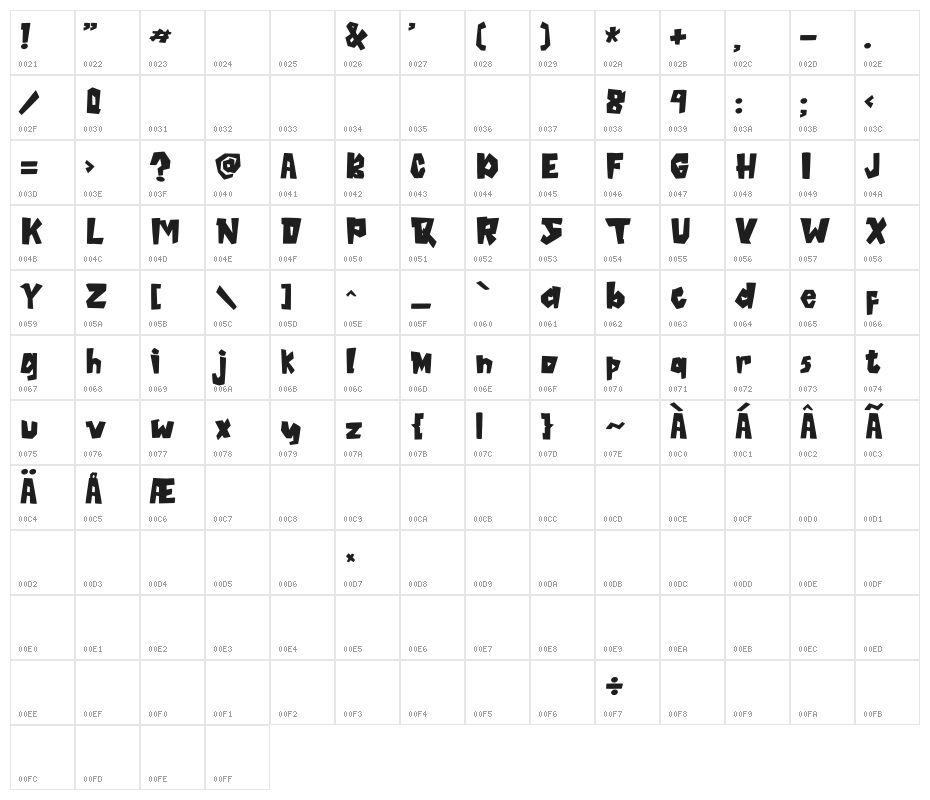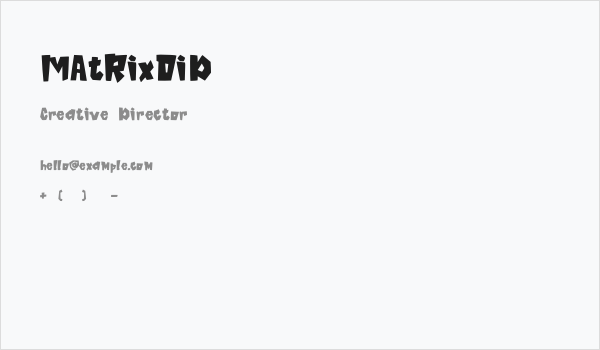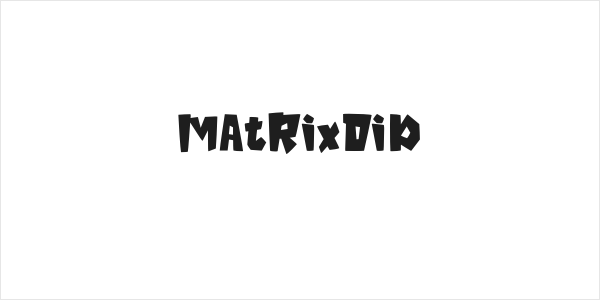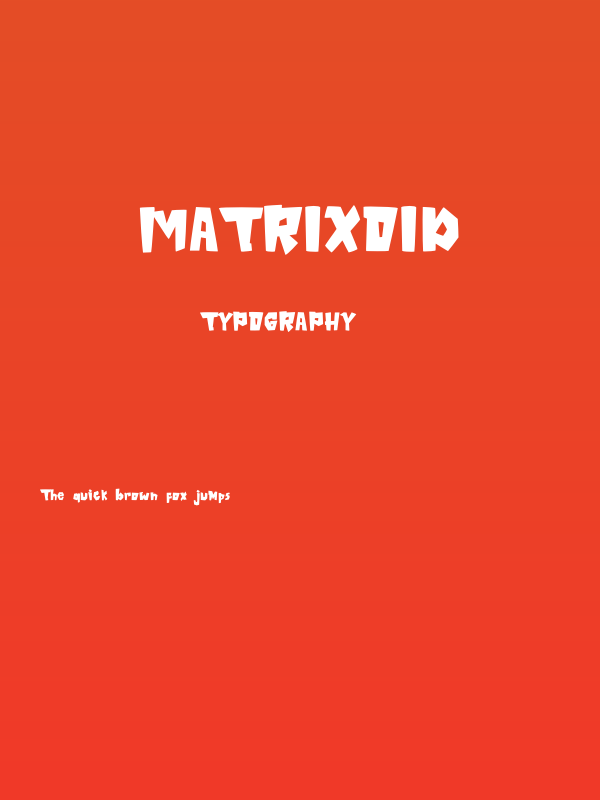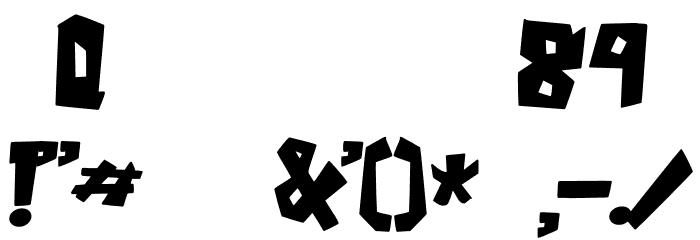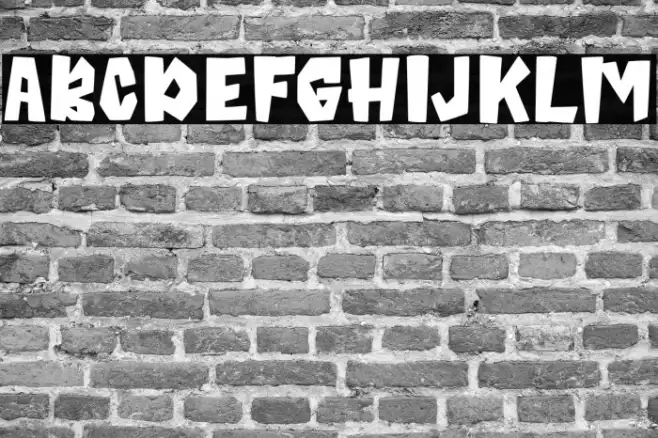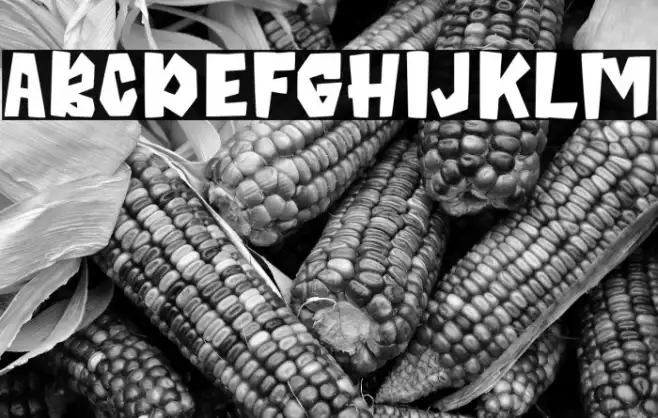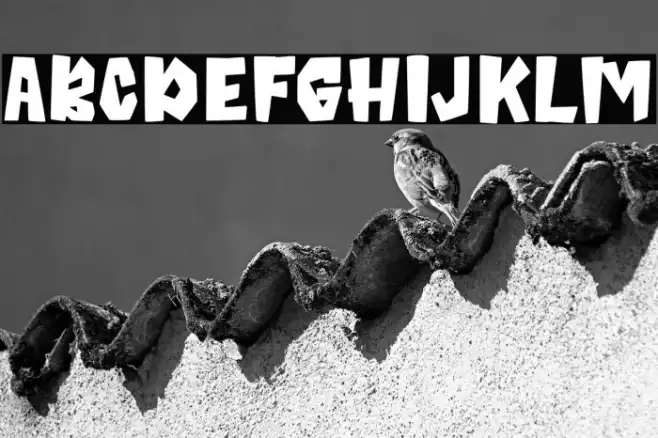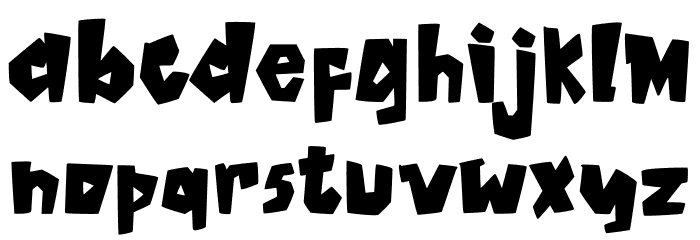
MAtRixOiD Font
MAtRixOiD Description
This font features a bold, angular design with a distinctly geometric and edgy appearance. The characters are heavily stylized, with sharp angles and irregular shapes that give it a dynamic and energetic feel. The uppercase and lowercase letters maintain a consistent style, with exaggerated forms that create a sense of movement. The numbers and special characters follow the same design principles, ensuring a cohesive look across all elements. This font is ideal for projects that require a strong visual impact and a modern, unconventional aesthetic.
| Proposed Projects | Ideal for posters, album covers, video game titles, and branding that requires a modern and dynamic look. |